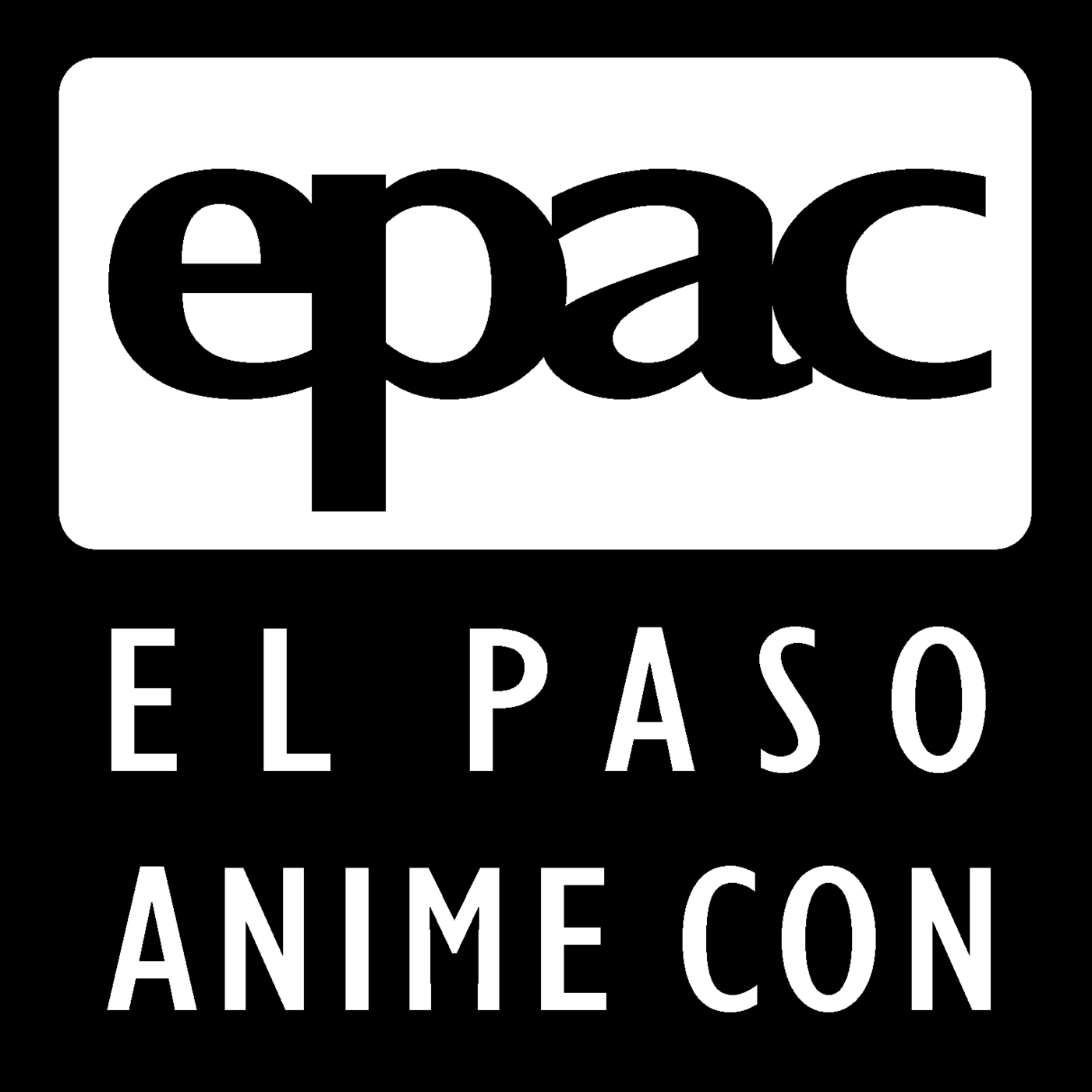
El Paso Anime Con Logo Upper and Lower-cased Fonts (2005-2009) - Front Identification Requested
This is the logo to El Paso's (now defunct) anime convention.  I requiring assistance in identifying both the lower-cased and upper-cased text in this logo.  I've tried utilizing MyFonts' WhatTheFont! feature, and posted a case on their site, with little to no success.  The same goes for "What Font Is."  I have been told that the lower cased text is something between Gill Sans MT, and Humanist 521 BT Bold, but there are subtle differences in the characters' typeface, found in the original logo and the aforementioned fonts.
With the upper-cased subtext, I've tried Gill Sans MT Condensed, and Humanist 521 BT Condensed, but have noticed subtle differences in both the characters, and when spacing the text when re-creating this logo in Adobe Illustrator.  The convention was founded in 2005, and the logo was made sometime between 2004-2005.  I've contacted the convention's organizers, via Facebook, and they no longer have the original files for the make of their logo.
I believe this is all Gill Sans Condensed MT. Try the following in Illustrator:
For epac: 72 point type, expand 182.44%; tracking, e (-110), p (-90), a (-90).
For EL PASO: 30 pt type, 52 pt word space, expand 129.12%; tracking, "EL" (-68), word space and "PASO" (-50).
For ANIME CON: 30 pt type, 12 pt word space, expand 118%; tracking, (80).
George, thank you so much for your help, both in identifying the font (I was honestly pulling my hair out, trying to match it with Gill Sans MT Bold, and Humanist 521 BT Bold for the lower-cased lettering, and Gill Sans MT Condensed, albeit, not stretching the EL PASO ANIME CON subtext.) and suggesting I stretch out the lower and upper-cased text to fit the logo's exact design.
Here is my result.  I had to play around with the EL PASO ANIME CON part a little, to achieve an exact result, much like the lower-cased, "epac" header.